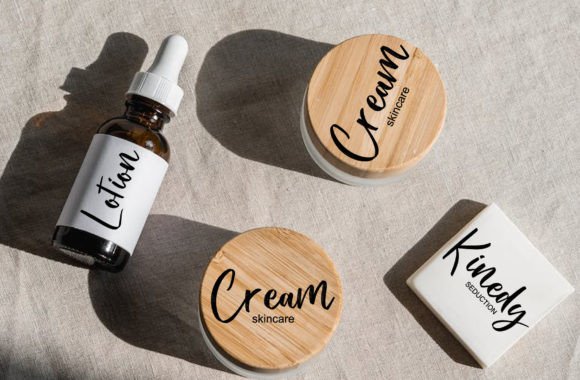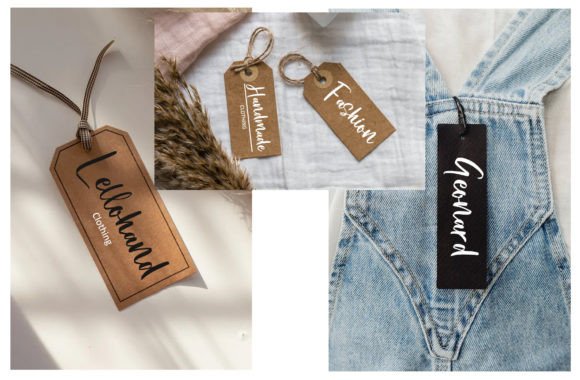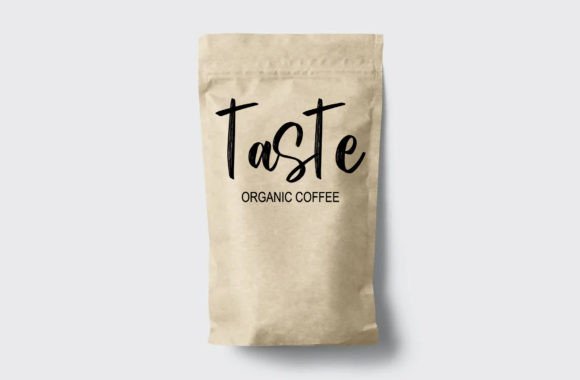
Sunshine Font
About Sunshine Font
**Sunshine Handcrafted Brush Font – Add a Bold and Confident Touch to Your Designs**
The Sunshine Handcrafted Brush Font is a bold and confident typeface that brings a free-flowing and expressive brush stroke style to your design projects. With its versatile uppercase and lowercase characters, Sunshine is a versatile font that can be used in a variety of creative applications. Here’s how you can make the most of the Sunshine Handcrafted Brush Font:
1. **Promotional Materials:** Use Sunshine to create eye-catching promotional materials such as flyers, posters, banners, and brochures. Its bold and confident brush strokes will grab the attention of your audience.
2. **Handwritten Quotes:** Design inspirational and motivational quotes using Sunshine. The free-flowing brush style adds an authentic and handcrafted touch to your quote graphics.
3. **Product Packaging:** Customize product packaging with the Sunshine font to give your products a bold and expressive look. It’s perfect for packaging that needs to stand out on the shelves.
4. **Merchandise:** Create merchandise designs, including T-shirts, hoodies, and accessories, using Sunshine. Its strong brush strokes make it ideal for clothing and apparel design.
5. **Clothing Design:** Design clothing collections with the Sunshine font for a contemporary and confident style. It’s great for branding clothing lines and adding a unique flair to your designs.
6. **Branding Projects:** Use Sunshine in branding projects to create memorable logos, business cards, and brand identity materials. Its bold and upright style makes it suitable for a wide range of industries.
7. **Social Media Graphics:** Design attention-grabbing social media posts and graphics using Sunshine. Whether it’s for Instagram, Facebook, or Pinterest, this font will help your content stand out.
8. **Quote Graphics:** Customize quote graphics for social media and websites with the Sunshine font. It adds a handcrafted and artistic feel to your visual content.
9. **Blog Headers:** Create stylish and bold blog headers and titles with Sunshine. It’s a great choice for bloggers looking to add a unique typographic element to their websites.
10. **Printed Merchandise:** Apply the Sunshine font to a variety of printed merchandise, including mugs, phone cases, notebooks, and more. Its strong brush strokes add a personal touch to everyday items.
11. **Art Prints:** Design art prints and posters with Sunshine to showcase your artwork or illustrations. Its confident brush strokes complement various artistic styles.
12. **Event Posters:** Design event posters and invitations with Sunshine to make event details stand out. Its bold and confident style is perfect for event promotion.
13. **Music Album Art:** Use Sunshine for music album covers and artwork to create a visually striking and expressive design.
14. **Book Covers:** Customize book covers, especially for genres that require a bold and contemporary style. Sunshine adds a dynamic and confident touch to book designs.
15. **Labels:** Design labels for products, gifts, or homemade goods using Sunshine. Its expressive brush strokes make labels visually appealing.
The Sunshine Handcrafted Brush Font’s bold and upright design, combined with its confident brush strokes, makes it a versatile choice for a wide range of design projects. Whether you want to create bold branding, expressive merchandise, or eye-catching promotional materials, Sunshine adds a strong typographic element that will make your designs memorable and impactful.